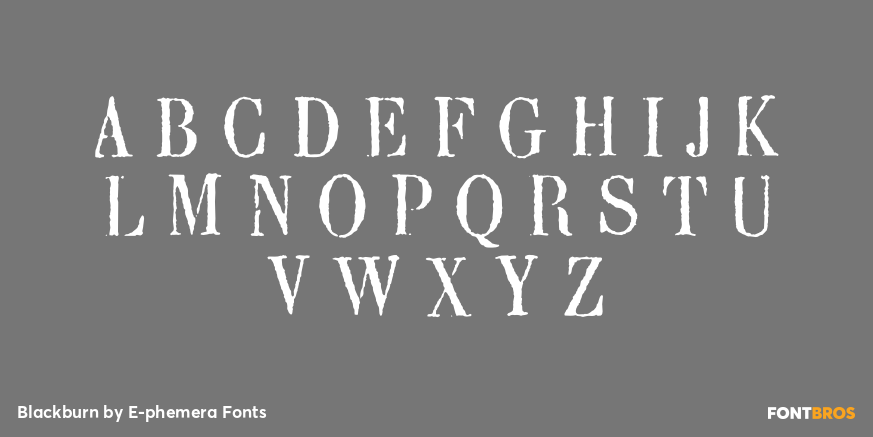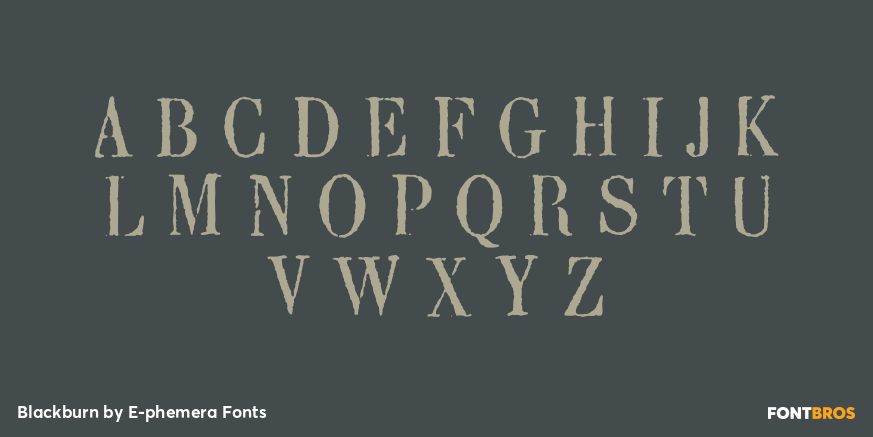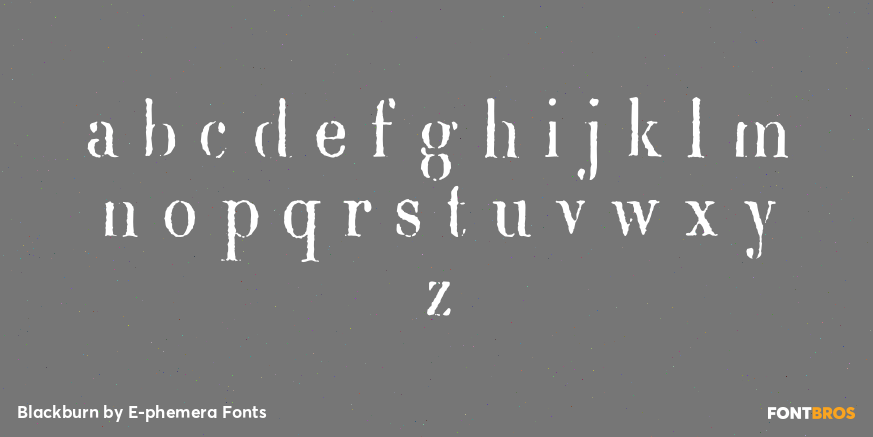
Blackburn
Font Family by E-phemera Fonts
Blackburn is a distressed text font designed by E-phemera Fonts to capture the look of old printing at small sizes.
Based on a 19th century French type specimen, it contains a complete international character set.